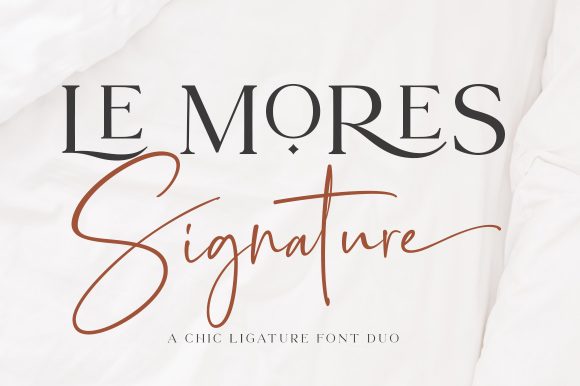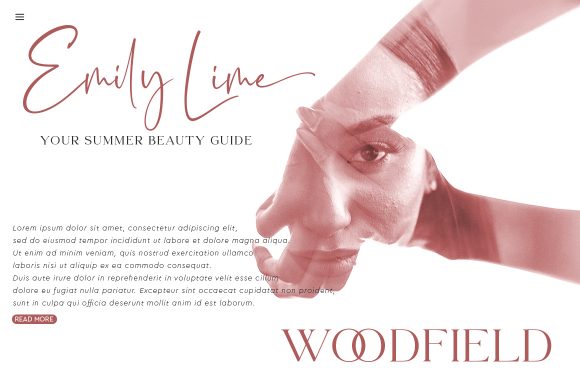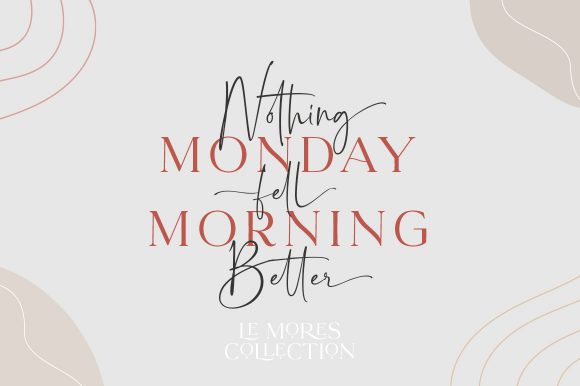
About Le Mores Signature Font
Le Mores Signature is an elegant and assertive duo font (serif and script). It will add a luxury spark to any design project that you wish to create! This font is PUA encoded which means you can access all of the amazing glyphs and ligatures with ease!